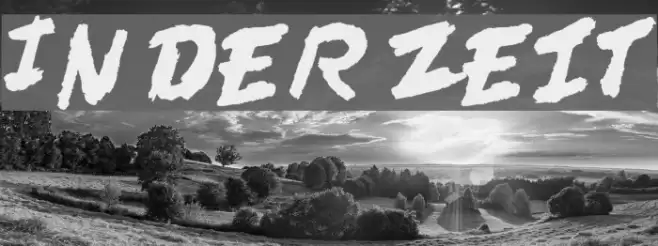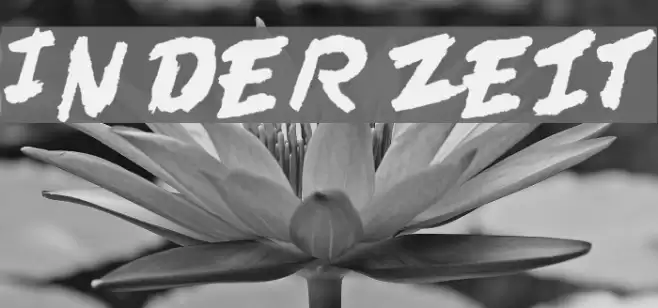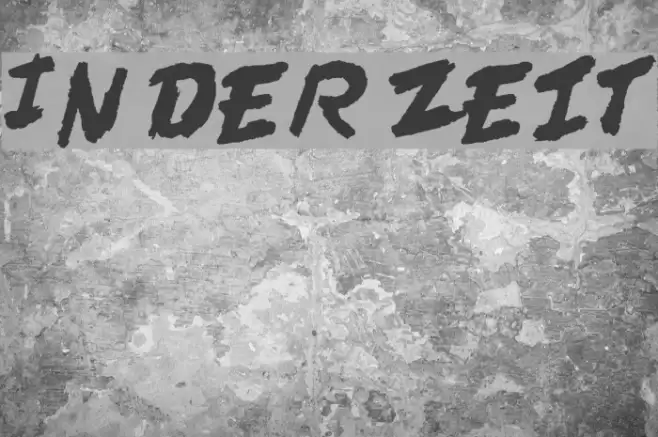
In der Zeit Font
In der Zeit Description
This font features a bold, brush-like appearance with a dynamic and energetic style. The strokes are thick and uneven, giving it a hand-painted look that adds a sense of movement and spontaneity. The uppercase letters are particularly striking, with a rugged texture that suggests a sense of urgency or action. The lowercase letters maintain the same boldness, ensuring consistency throughout. The numbers and special characters follow the same design principles, making the font versatile for various uses. Its unique style makes it stand out, ideal for projects that require a strong visual impact.
A bold, brush-style font with a dynamic and energetic appearance from Uncategorized fonts.
- Proposed Projects: Ideal for posters, headlines, branding, and any design requiring a bold, artistic touch.